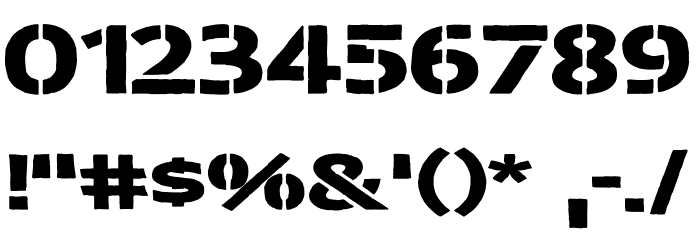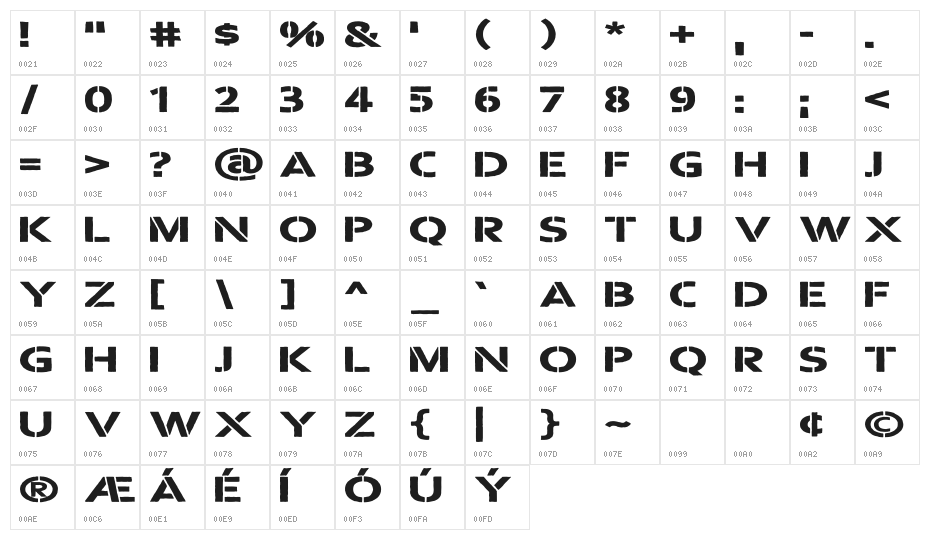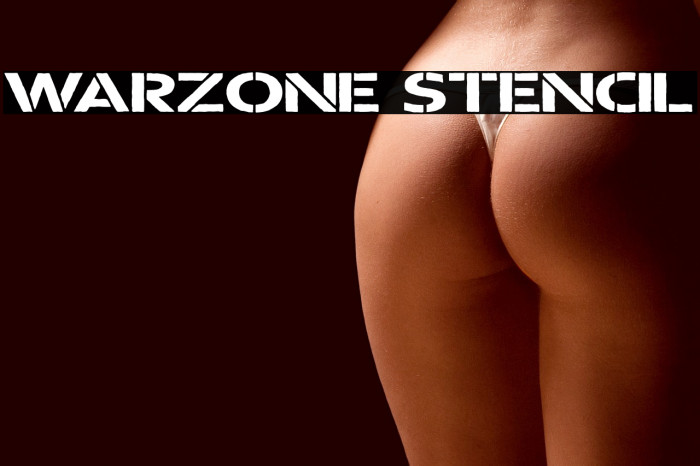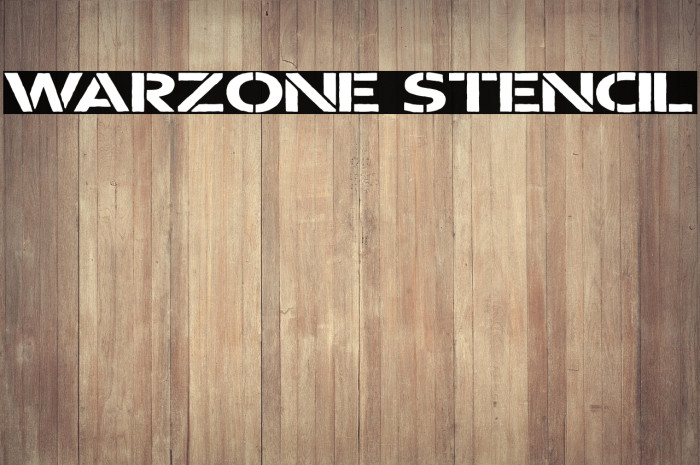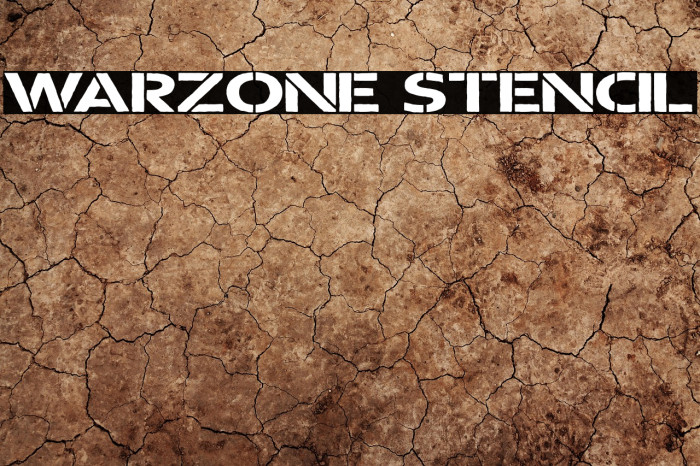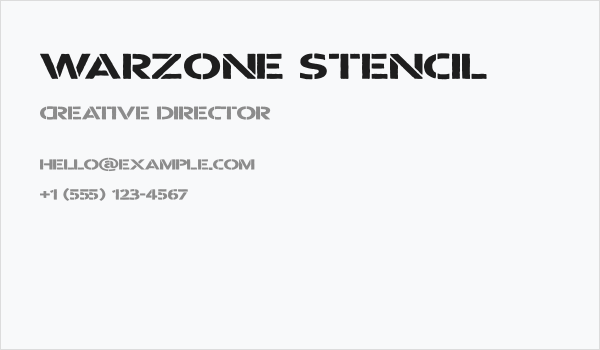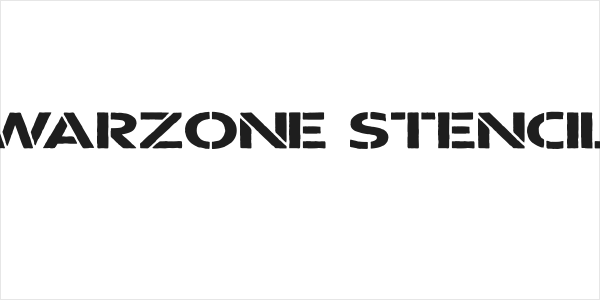
Warzone Stencil Font
Warzone Stencil Description
This font features a bold, stencil-like design with a rugged and military-inspired aesthetic. The characters are uppercase and have a distinct, cut-out appearance, making them highly legible and impactful. The design incorporates sharp angles and straight lines, giving it a structured and disciplined look. The font's style is reminiscent of traditional stencil lettering used in industrial and military contexts, providing a sense of authority and strength. It is suitable for designs that require a bold statement, such as posters, signage, and branding materials.
| Overall Style | Military, Industrial, Bold |
| Use Case | Headlines, Posters, Signage |
| Proposed Projects | Ideal for military-themed designs, posters, signage, branding, and any project requiring a strong, authoritative presence. |